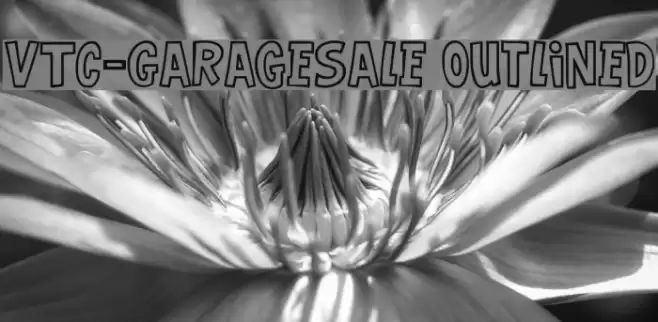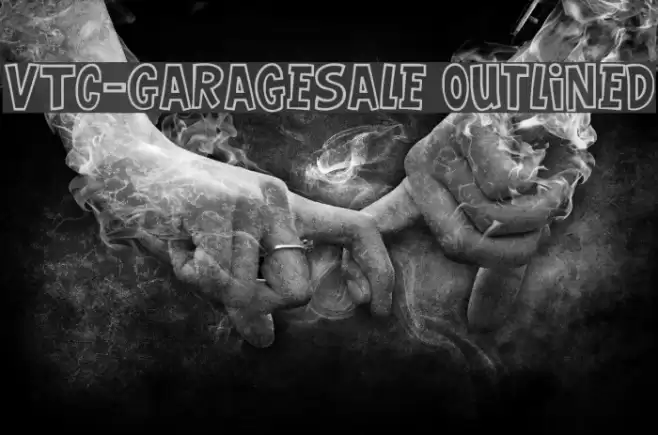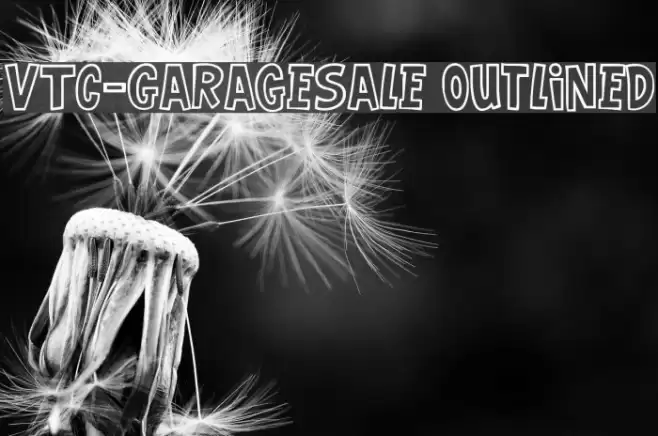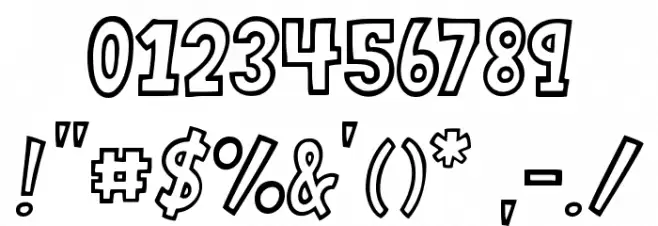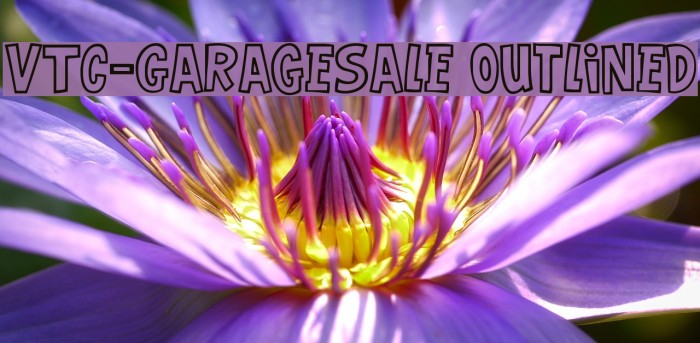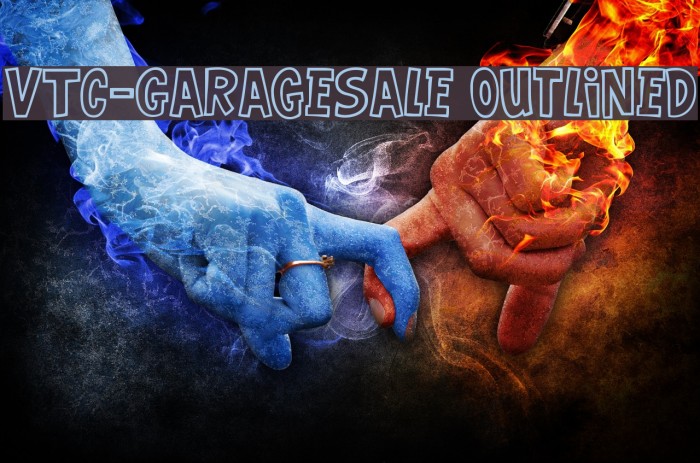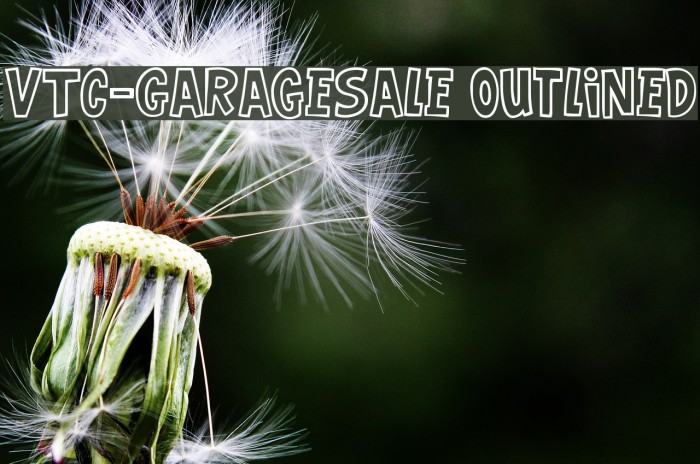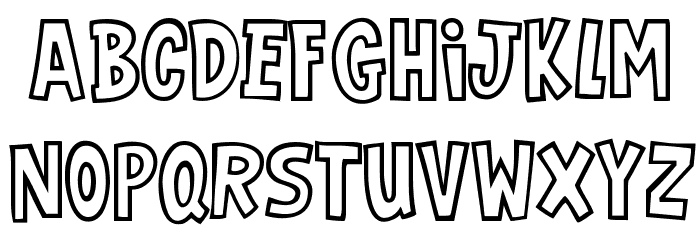
VTC-GarageSale Outlined Font
VTC-GarageSale Outlined Description
This font features a bold, outlined style with a playful and informal appearance. The characters are uppercase and lowercase with a consistent outline that gives them a three-dimensional effect. The strokes are thick and uniform, providing a strong visual impact. The font has a hand-drawn quality, making it ideal for projects that require a casual and fun aesthetic. The numbers and special characters maintain the same outlined style, ensuring consistency across all glyphs. This font is perfect for creating eye-catching headlines, posters, and designs that aim to capture attention with a lively and energetic vibe.
A bold, outlined font with a playful, hand-drawn style from Uncategorized fonts.
- Proposed Projects: Ideal for posters, headlines, children's books, and playful branding.
- Overall Style: Playful, Casual
- Use Case: Headlines, Posters, Branding